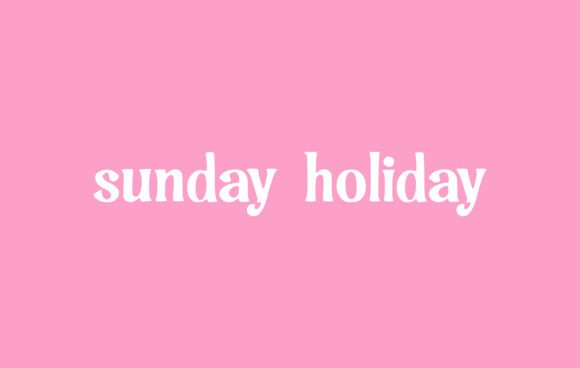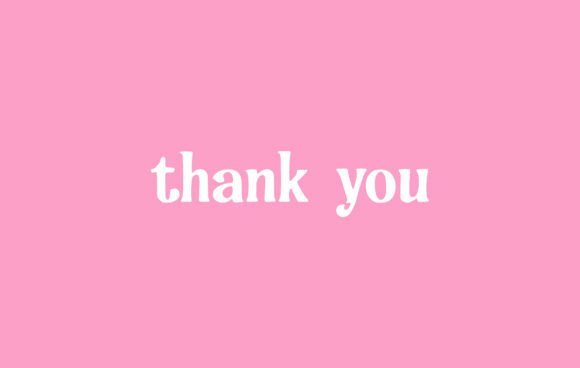
The Perfect Blend of Classic and Quirky: Introducing Bansuri Font
Have you ever stumbled upon a font that instantly sparks creativity and makes you want to dive into a project headfirst? For many designers, that moment is what drives the magic of their craft. It’s the thrill of discovering a font that perfectly captures the essence of a concept, making it come alive in a way that’s both beautiful and meaningful.
Meet Bansuri Font, a charming serif display font that embodies that exact feeling. With its bold, playful personality and soft handmade twist, Bansuri is the perfect choice for designers looking to add a touch of whimsy to their projects. Whether you’re creating a children’s book title, a logo, or product packaging, Bansuri Font is sure to stand out with its unique character and readability.
Bansuri Font Key Features
- Character Set: The font includes a comprehensive set of characters, including Latin, Devanagari, and other Indian scripts, making it suitable for various languages and applications.
- Unique Characteristics: Bansuri Font is designed to be highly legible and readable, with a unique blend of traditional and modern elements. Its distinctive style and flair set it apart from other fonts in its class.
- Language Support: Bansuri Font supports a wide range of languages, including English, Hindi, Marathi, Gujarati, and many others, making it an ideal choice for multilingual applications and publications.
- Font Weight and Style: The font is available in regular, bold, italic, and bold italic styles, providing users with a range of options to suit their design needs.
Bansuri Font Review
Overall, I’m impressed with the Bansuri font. ✨ It has a unique and exotic feel to it, making it perfect for projects that require a touch of Indian or Middle Eastern flair. The font is highly customizable, allowing users to adjust the weight, style, and size to suit their needs.
One of the standout features of Bansuri is its versatility. ✨ It works well in both digital and print formats, and its large character set makes it a great choice for multilingual projects. Additionally, the font is highly legible, even at small font sizes.
However, there are some limitations to consider. ⚠️ For one, the font may not be suitable for projects that require a more modern or minimalist aesthetic. Additionally, some users may find the font’s complexity overwhelming, particularly when it comes to customizing the font’s various parameters.
Here are some specific things that work well and not so well about Bansuri:
- Unique and exotic feel ✨
- Highly customizable ✨
- Versatile and works well in both digital and print formats ✨
- Large character set makes it suitable for multilingual projects ✨
- May not be suitable for modern or minimalist projects ⚠️
- Complexity may be overwhelming for some users ⚠️
Overall, I would recommend Bansuri to designers who are looking for a unique and versatile font that can add an exotic touch to their projects. However, it may not be the best choice for projects that require a more modern or minimalist aesthetic.
Bansuri font is ideal for:
- Indian and Pakistani cultural designs.
- Traditional and vintage-inspired designs.
- Handwritten and calligraphy-style designs.